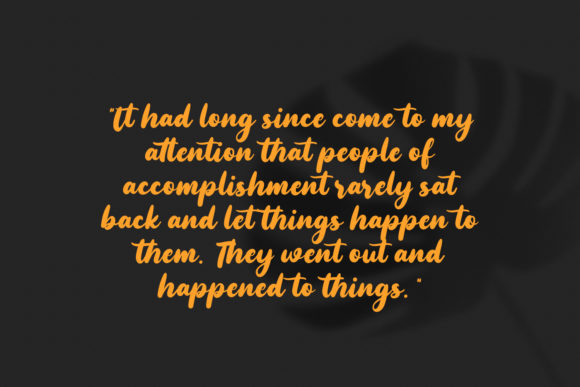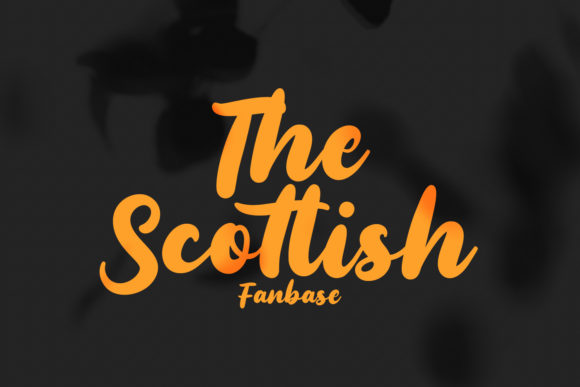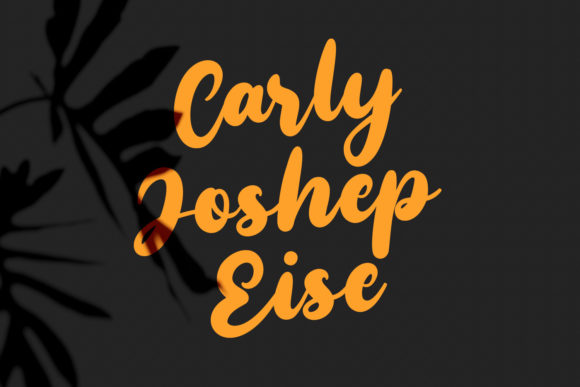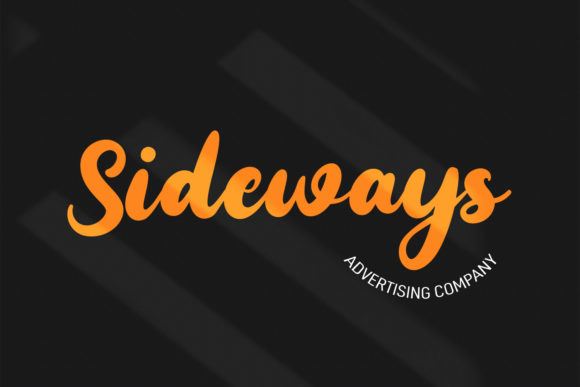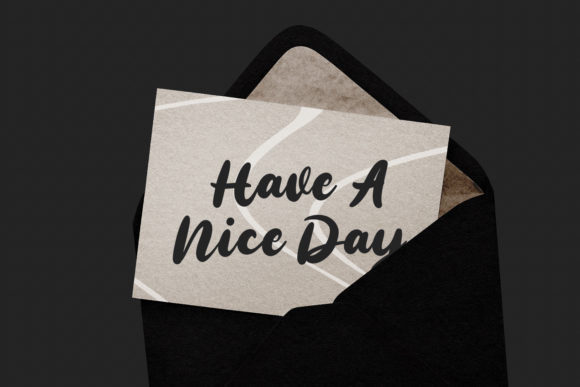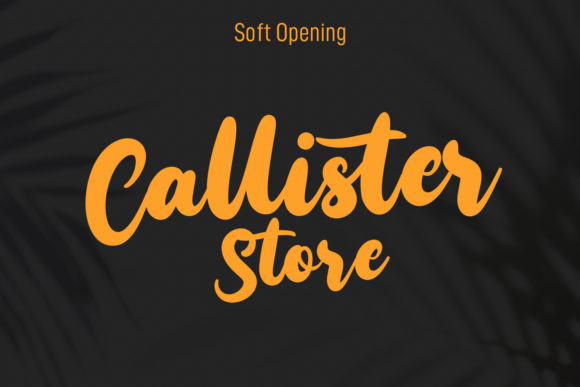
Introducing Callways Script Font: Elevate Your Designs with Elegance and Style
Are you on the hunt for a font that adds a touch of sophistication and charm to your projects? Look no further than Callways Script Font! This attractive handwritten font is designed to bring a bold and stylish vibe to your creations, making it perfect for a variety of applications. From wedding projects and birthday invitations to thank you notes and other beautiful creations, Callways Script Font is sure to become your go-to choice.
The Characteristics of Callways Script Font
Callways Script Font boasts a range of characteristics that set it apart from other fonts. Its bold characters are designed to make a statement, while its stylish and elegant vibe adds a touch of sophistication to any project. The font features:
- Bold and stylish characters: Callways Script Font features bold characters that are designed to grab attention and add a touch of drama to your projects.
- Handwritten elegance: The font’s handwritten style gives it a personal and elegant feel, making it perfect for projects where you want to add a touch of warmth and personality.
- Versatility: Callways Script Font is versatile and can be used for a range of projects, from formal wedding invitations to playful birthday cards.
Uses for Callways Script Font
Callways Script Font is perfect for a variety of projects, including:
- Wedding projects: Use Callways Script Font to create beautiful wedding invitations, save the dates, and thank you notes that set the tone for your special day.
- Birthday invitations: Add a touch of elegance and sophistication to your birthday invitations with Callways Script Font.
- Thank you notes: Use Callways Script Font to create beautiful and heartfelt thank you notes that show your appreciation.
- Other beautiful creations: Callways Script Font can also be used for other projects, such as party invitations, greeting cards, and more.
Why Designers and Crafters Love Callways Script Font
Designers and crafters love Callways Script Font for a range of reasons, including:
- Ease of use: Callways Script Font is easy to use and can be easily integrated into your designs.
- High-quality design: The font is designed to high standards, ensuring that your projects look professional and polished.
- Flexibility: Callways Script Font can be used for a range of projects, making it a versatile addition to your font collection.
Tips for Using Callways Script Font
Here are some tips for getting the most out of Callways Script Font:
- Experiment with different sizes: Callways Script Font looks great in a range of sizes, from large and bold to small and delicate.
- Pair with other fonts: Try pairing Callways Script Font with other fonts to create a unique and interesting look.
- Use for headlines and titles: Callways Script Font is perfect for headlines and titles, where its bold and stylish characters can really make an impact.
Callways Script Font is a beautiful and versatile font that is perfect for designers and crafters looking to add a touch of elegance and style to their projects. With its bold characters, stylish vibe, and ease of use, it’s no wonder that Callways Script Font is becoming a popular choice for a range of applications. Whether you’re working on a wedding project, birthday invitation, or other beautiful creation, Callways Script Font is sure to help you create something truly special.